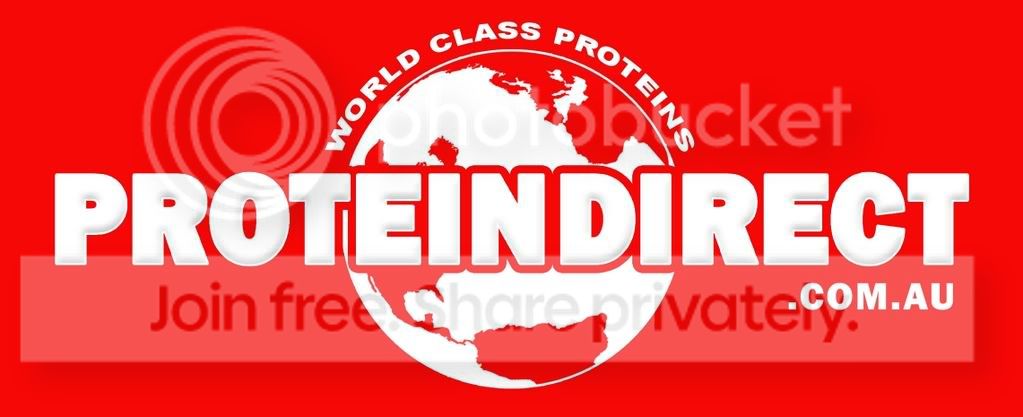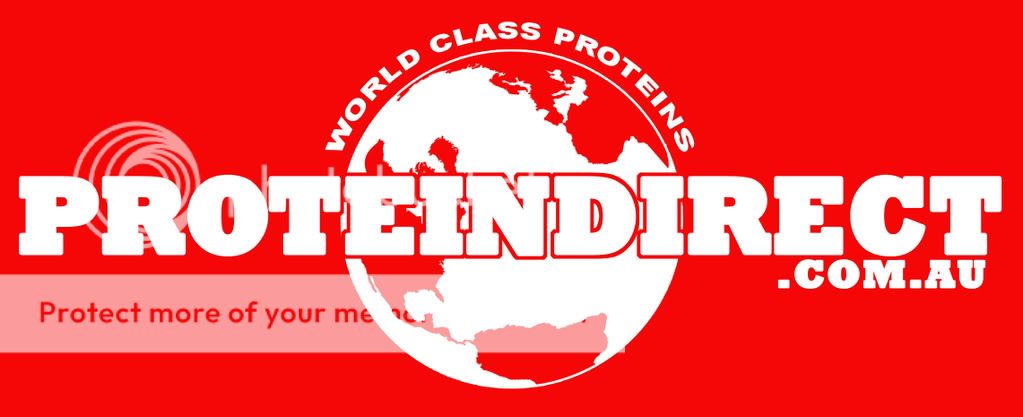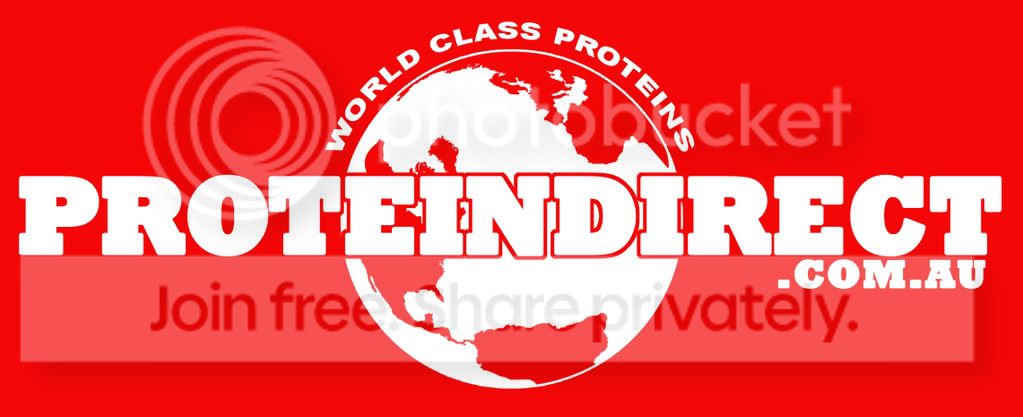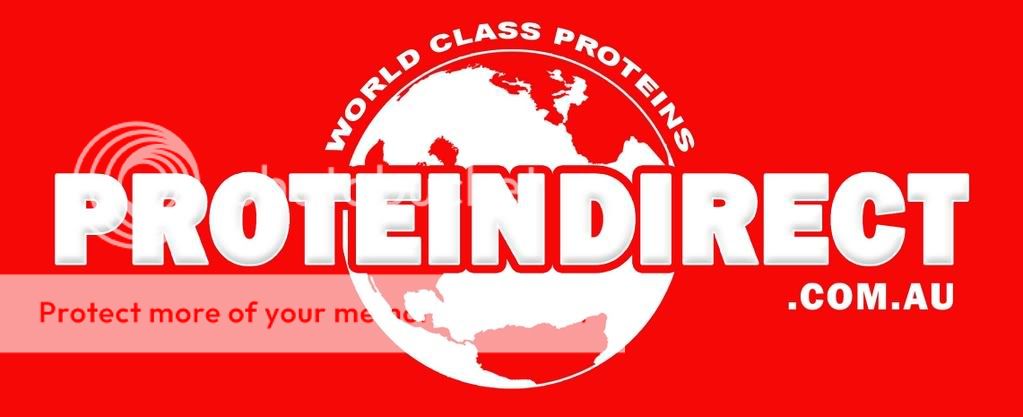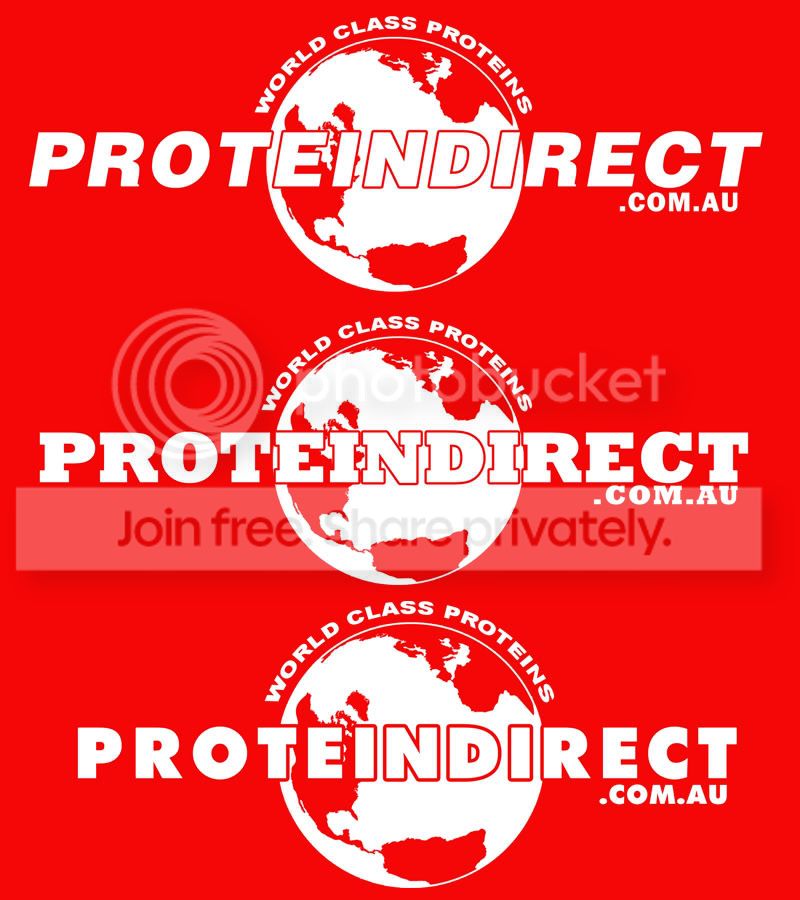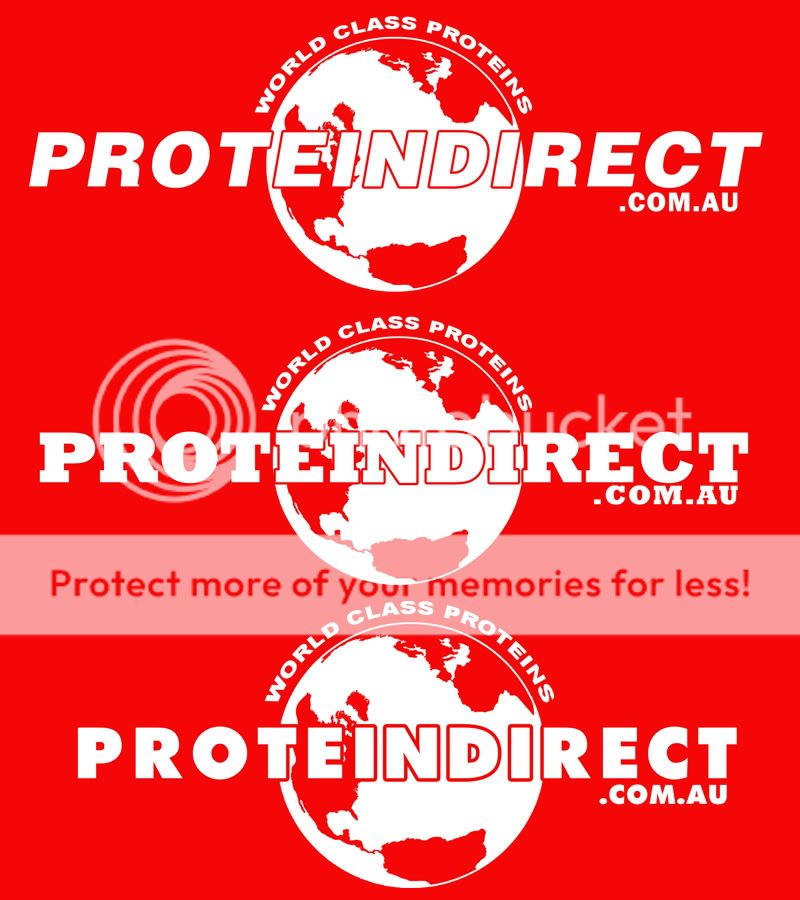
I need a new (improved) font for my logo.
I can't put my finger on it but I think my logo could do with a better font. Please leave everything as it is but change ONLY the proteindirect font. I prefer a bold font similar to Rockwell Bold. It does not have to be Rockwell Bold but something similar. I prefer mainly bold fonts. The font needs to look professional, corporate. Once you change the font you may need to slightly move the .com.au part to fit your new font, but other than that everything stays as it is.
VERY IMPORTANT: I need to print my logo on some plastic bags in red and white only. So I need my logo to be red and white only, meaning no shades of gray or any other colours as this will add significant costs to printing. The logo will be printed on red background.
My logo looks like this: [​IMG]
So let's see who can come up with the most suitable font. Please remember I prefer bold fonts.
When submitting designs, please submit the logo on a RED background as it makes it easier for me to judge. So proteindirect will have to be in white.
here's my design
Weblazer: thanks for the entry. I just realised I forgot to mention it. I need the proteindirect to be in white so all entries need to be submitted on a red background. I'll see if I can edit my thread and insert this requirement in there. I can still judge yours weblazer, but it just makes it easier if I have the logo on a red background.
Weblazer, you also removed the slogan world class proteins. World class proteins remains part of the logo (it must not be removed). Only the proteindirect font needs to be changed.
here my try
Thanks weblazer: so far I like your middle one the best
Offirio: thanks for the submission but it's not what I like. I prefer a more professional/corporate font. Yours is just a touch out of what I am after.
here another fonts:
thanks ofi. The third one looks better but so far weblazer (middle) one is my favorite. His font is a little more bold and I prefer bold. I'm off to bed now but I'll be back.
here another lol :)
how about this ?
Weblazer, so far your latest one is the one I am considering the most.
ok my last try :D